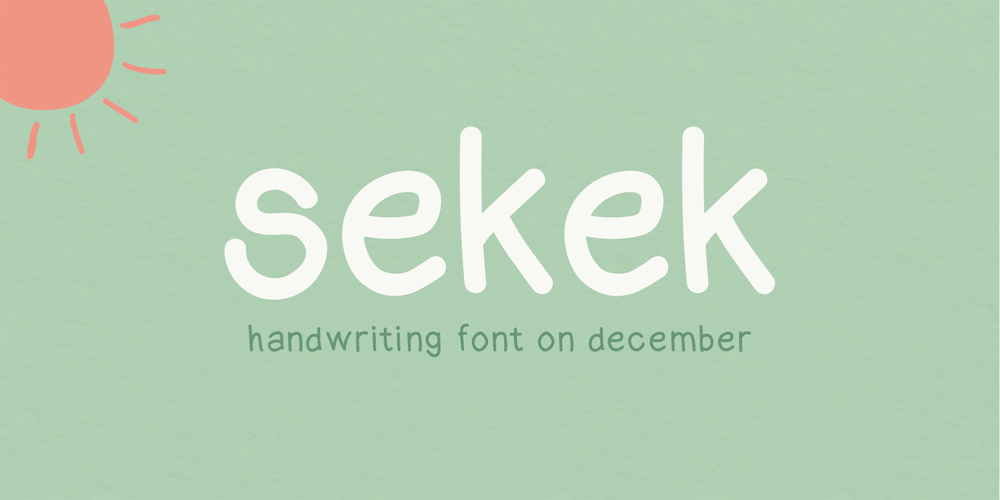
Sekek
Sekek font
Sekek Font Family was designed by Gholib Tammami and published by Gholib Tammami. Sekek contains 1 styles and family package options. Sekek is a cute display font. It embodies playfulness and authenticity and is the perfect choice for any children’s activity or school project. Add this chunky lettered font to your designs and notice how it makes them come alive.